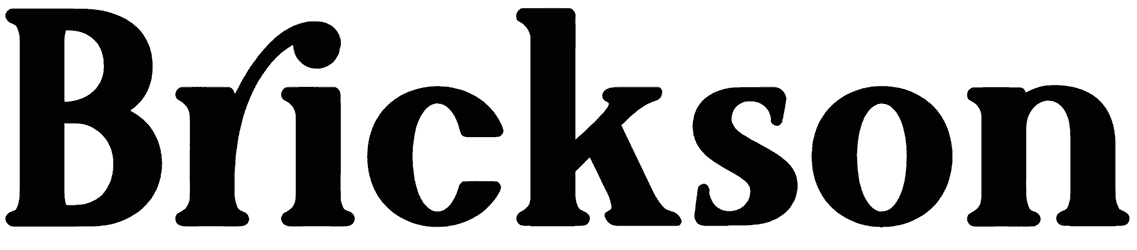
Brickson Font
With the trustworthy and venerable identity of the serif font and sophisticated, standard, and clean design, you can rise above the others in showing off many graphics.
Brickson serif font is associated with bold and curly edges in some letters that can give variety to your typography. So, don’t waste your time, give it a shot in posters, headlines, TV, fashion, and main text to create a precious, enchanting outcome.
Brickson is a distinct, elegant serif that blends traditional influences into a contemporary aesthetic. Elegantly crafted and easily be matched to an incredibly large set of projects. Use Brickson to achieve an exquisite, yet subtle look and maximum versatility.